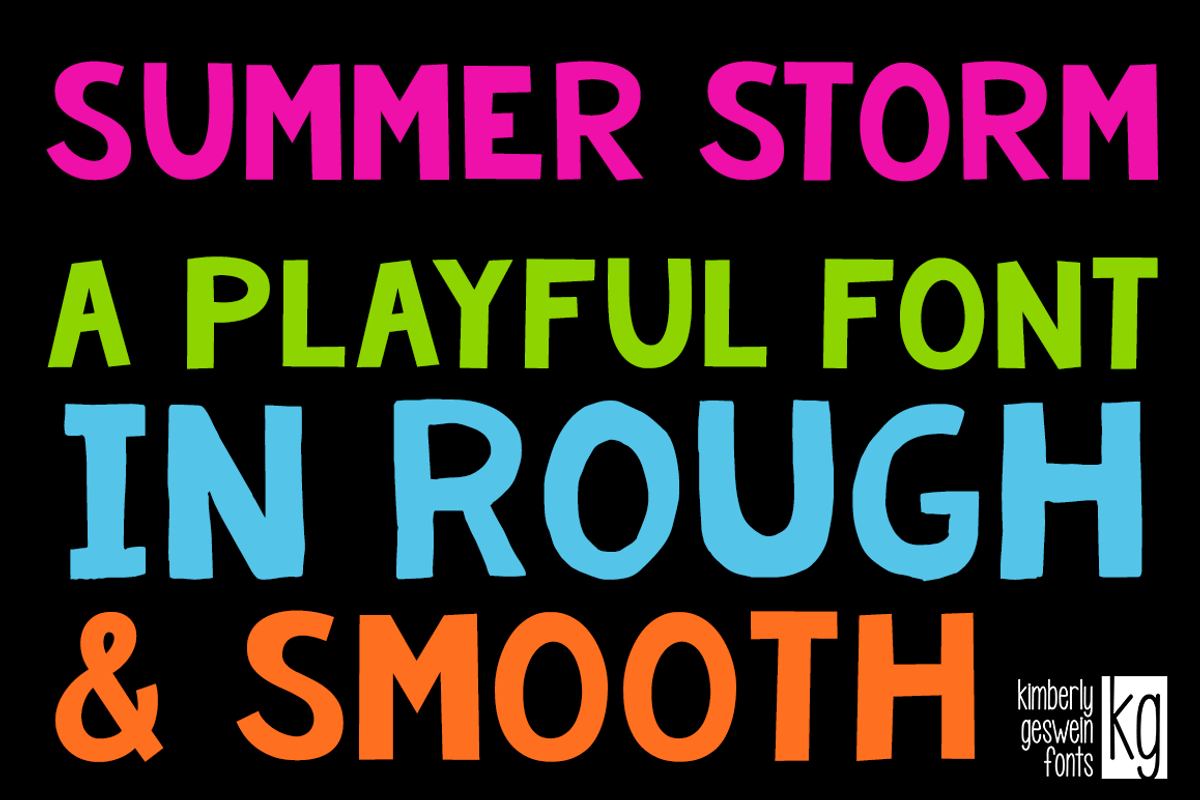
KG Summer Storm
KG Summer Storm by Kimberly Geswein Fonts is a font selected for branding, posters, packaging, typography.
- KG Summer Storm Rough Regular
- KG Summer Storm Smooth Regular
KG Summer Storm by Kimberly Geswein Fonts fits naturally into Branding, posters, packaging, typography.